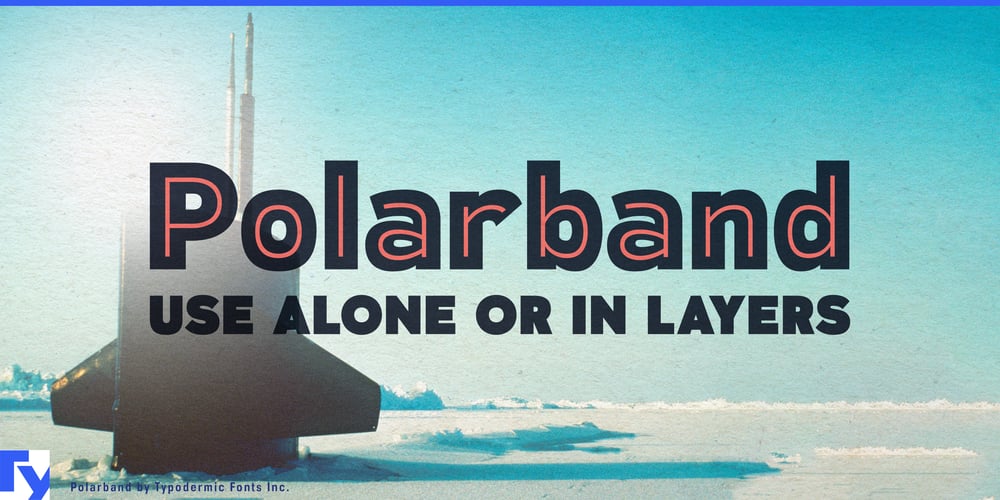
Polarband
Polarband font
Polarband Font Family was designed by Ray Larabie and published by Typodermic. Polarband contains 3 styles and family package options. Dive deep into the world of Polarband, a typeface that navigates the icy waters of design with the stealth and precision of a Cold War submarine. This retro-inspired sans-serif doesn’t just communicate—it operates under the radar, delivering messages with the quiet efficiency of a well-oiled periscope.Polarband’s unique stacked layer design mimics the pressure-resistant hull of a submarine, with its inner layer nestling snugly within the outer, creating a typographic depth that rivals the Marianas Trench. This layered approach isn’t just for show—it’s a tactical advantage in the design theater, allowing for color combinations as varied as the Arctic ice used to be. Like the silent hunters of the deep, Polarband moves through your designs with purpose. Its geometric shapes cut through visual noise like a sonar ping, while its humble style maintains radio silence, perfect for covert operations in logo design or headline deployment. Whether you’re charting a course for a vintage-inspired campaign or surfacing a bold new brand identity, Polarband stands ready to execute your mission parameters.This typeface doesn’t discriminate in its linguistic capabilities, supporting a vast array of Latin-based European writing systems. From the fjords of Norwegian to the steppes of Romanian, Polarband transmits your message across borders with the ease of an encrypted submarine communication. In the high-stakes game of design, where every pixel counts, Polarband is your ace in the hole. It’s a strategic asset. Deploy Polarband in your next project and watch as it maneuvers through the treacherous waters of modern design, leaving competitors in its wake.Remember, in the depths of creativity, pressure makes diamonds—and Polarband thrives under pressure. So batten down the hatches, set a course for innovation, and let Polarband be the periscope through which you view a new world of typographic possibilities.